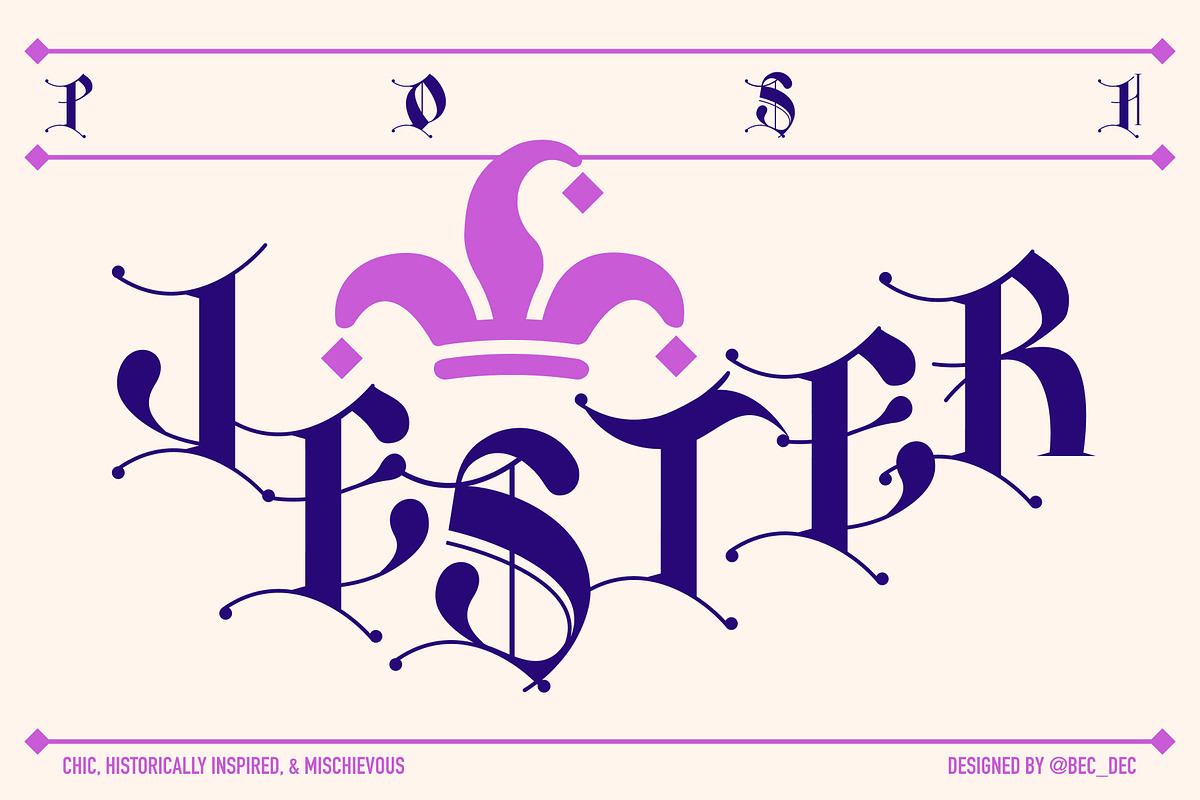
Posh Jester Font Free Download is a quirky yet elegant display font that strikes the perfect balance between playful character and upscale style. Ideal for creative branding, event posters, editorial headlines, and whimsical packaging, this font adds flair with a sophisticated twist.
Its unique letterforms combine bold personality with clean structure, making it perfect for projects that want to stand out without losing class. Whether you're working on fashion-forward designs or artsy promotions, Posh Jester brings a sense of charm and creativity.
Designers love this font for its versatility—it’s fancy, fun, and totally unforgettable. Looking to add some theatrical elegance to your work? Download Posh Jester Font Free Download and let your designs perform with style and personality.